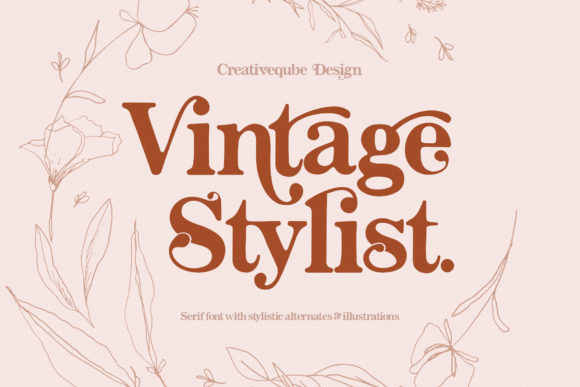
Introducing Vintage Stylist Font, the epitome of elegance and sophistication for all your creative endeavors. This modern and vintage serif font, created by the esteemed Creativeqube Design, is the perfect choice for those seeking the Best Font For Wedding Menu. With its exquisite alternates and ligatures, Vintage Stylist Font will effortlessly elevate your designs, captivating your audience and leaving a lasting impression.
Imagine the enchanting beauty of Vintage Stylist Font gracing your logos, quotes, wedding invites, blog posts, and even your Instagram feed. Its timeless appeal will transport your audience to a world of nostalgia and charm, setting the perfect tone for your brand or personal projects.
Crafted with meticulous attention to detail, Vintage Stylist Font offers an extensive range of stylistic options that allow you to unleash your creativity. Whether you're aiming for a classic and refined look or a touch of vintage flair, this font has it all. Its versatility knows no bounds, making it a must-have tool for designers, entrepreneurs, and content creators alike.
With Vintage Stylist Font, you can confidently add a touch of elegance to any project. Its seamless integration into your work will leave you spellbound, as you witness the transformation and the stunning results it brings. Your designs will exude sophistication and professionalism, leaving a lasting impact on your audience.
But Vintage Stylist Font offers more than just visual appeal. It evokes emotions, stirring feelings of nostalgia, romance, and timelessness. Your audience will be captivated by the charm and grace of this font, creating a powerful connection and fostering trust.
Take your designs to new heights with Vintage Stylist Font. Let its elegance and versatility be the driving force behind your creative vision. Whether you're designing wedding menus, crafting captivating quotes, or creating a brand identity that demands attention, this font is your secret weapon.